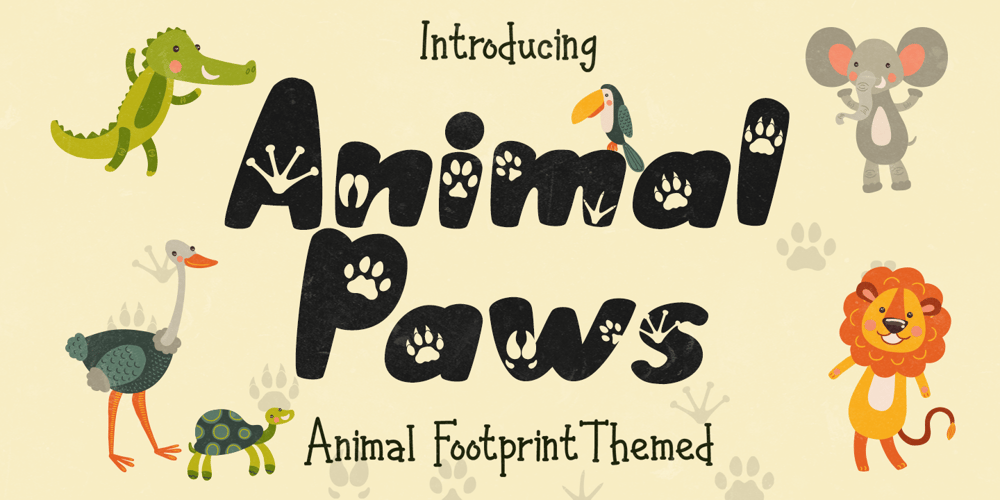
Animal Paws
Animal Paws font
Animal Paws Font Family was designed by Dian Haniffan Hadi and published by Beary. Animal Paws contains 1 styles and family package options. Animal Paws embodies fun, quirkiness and authenticity. This enchanting handwritten font features gorgeous animal-themed characters that will turn any creative idea into a true standout. Get inspired by its unique look and create gorgeous crafting projects!